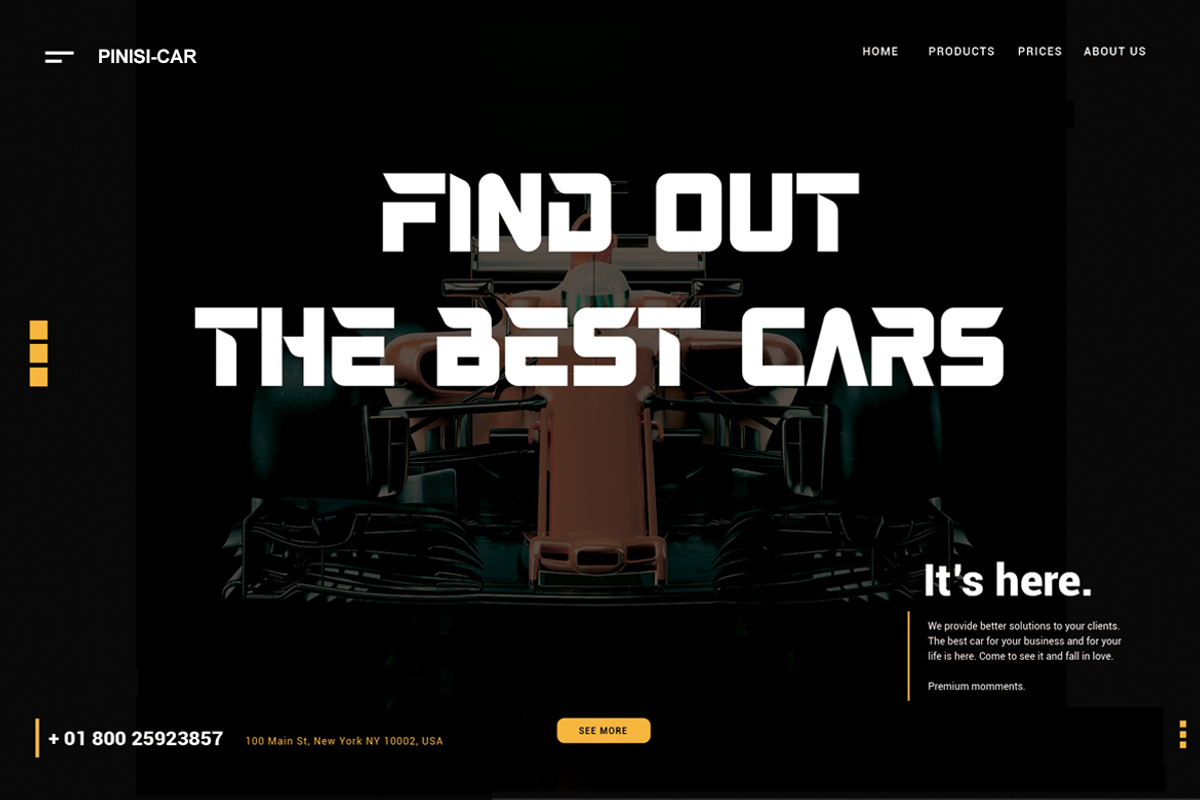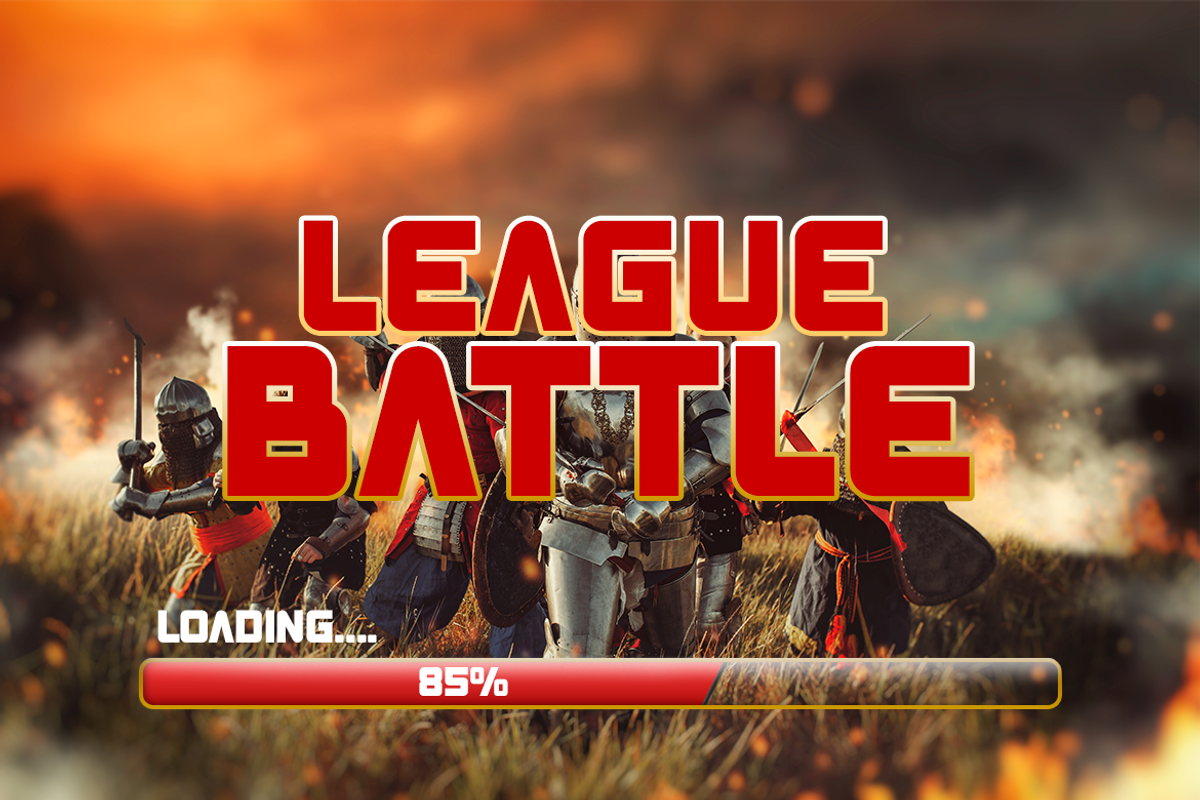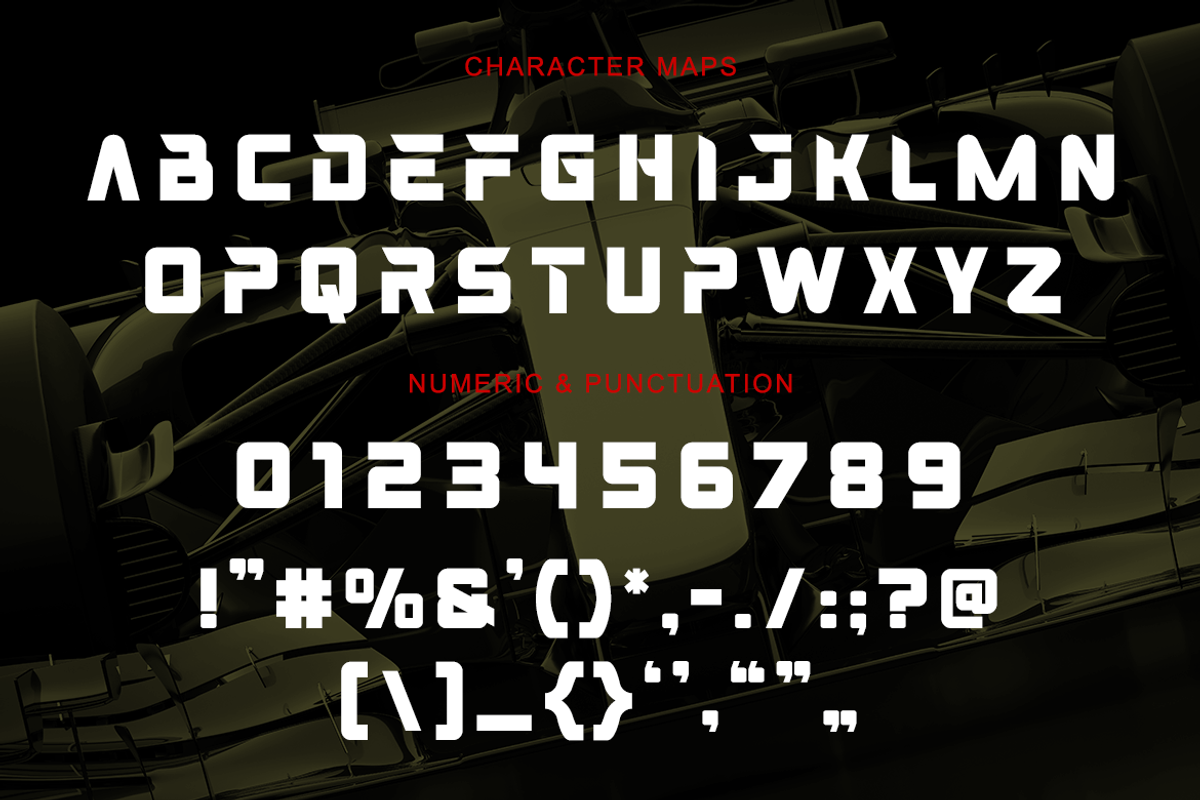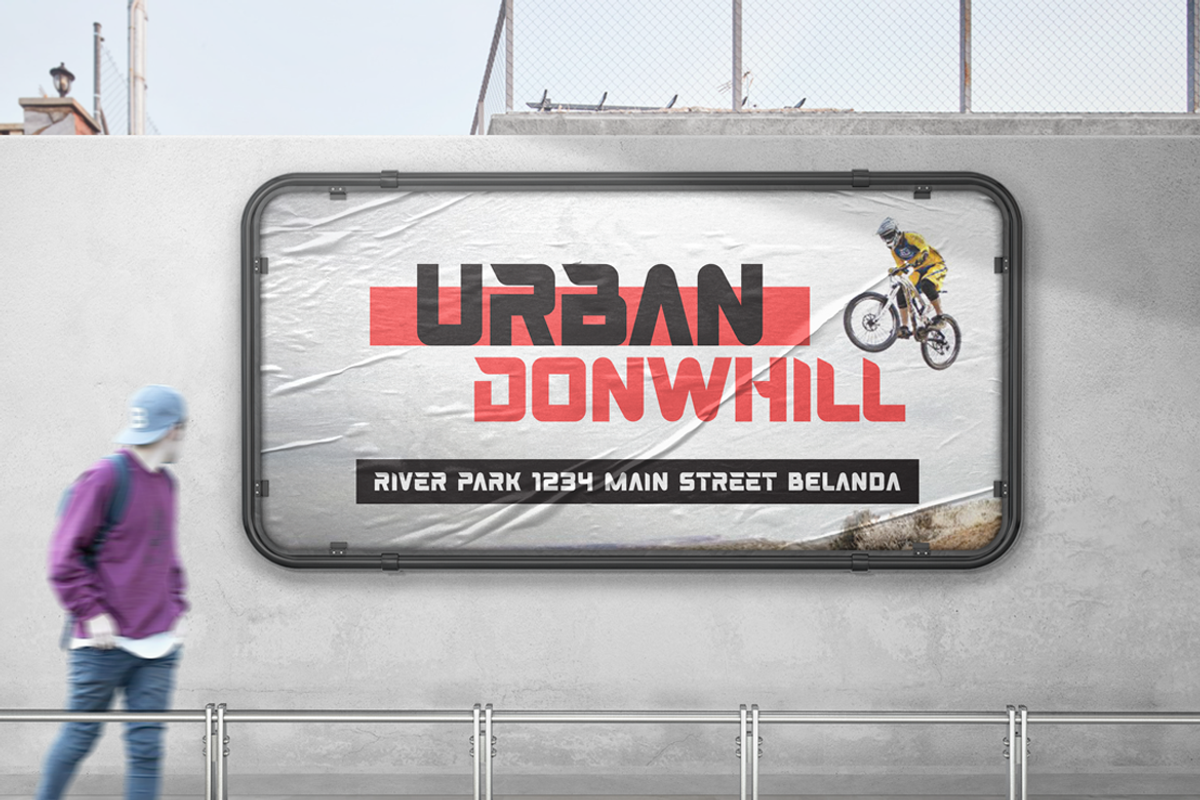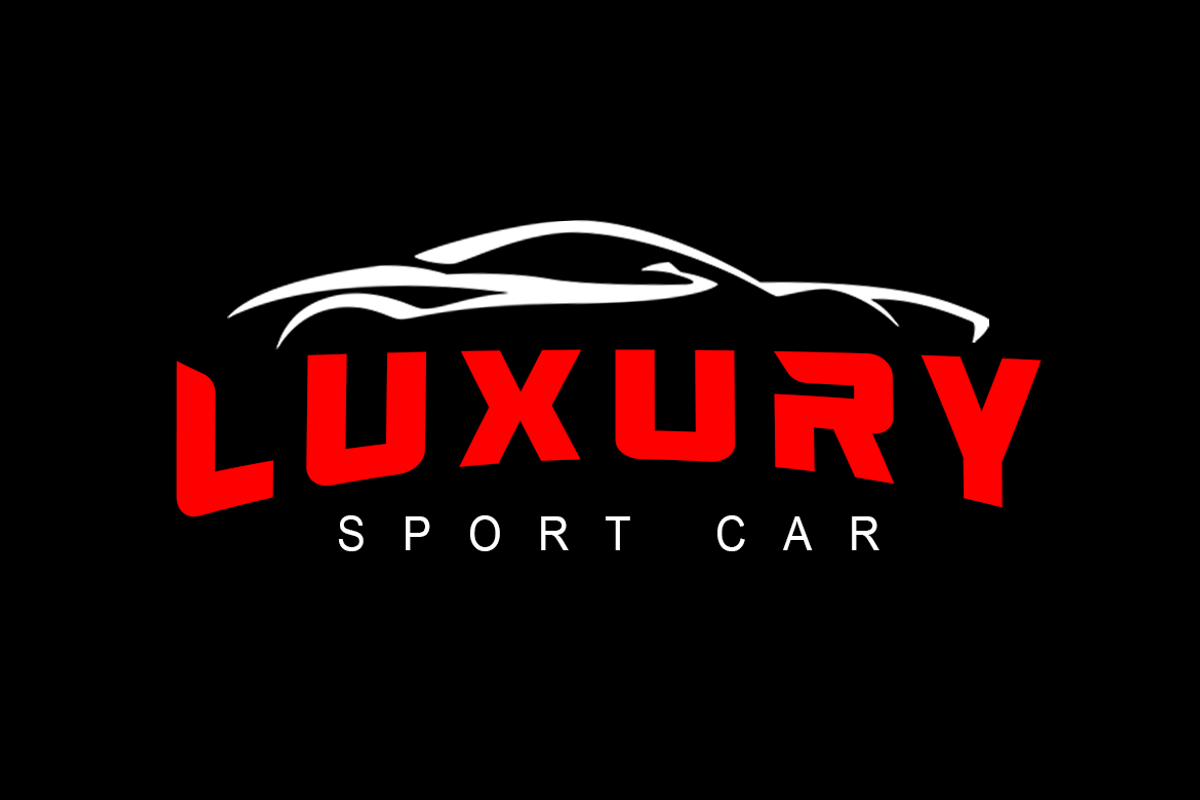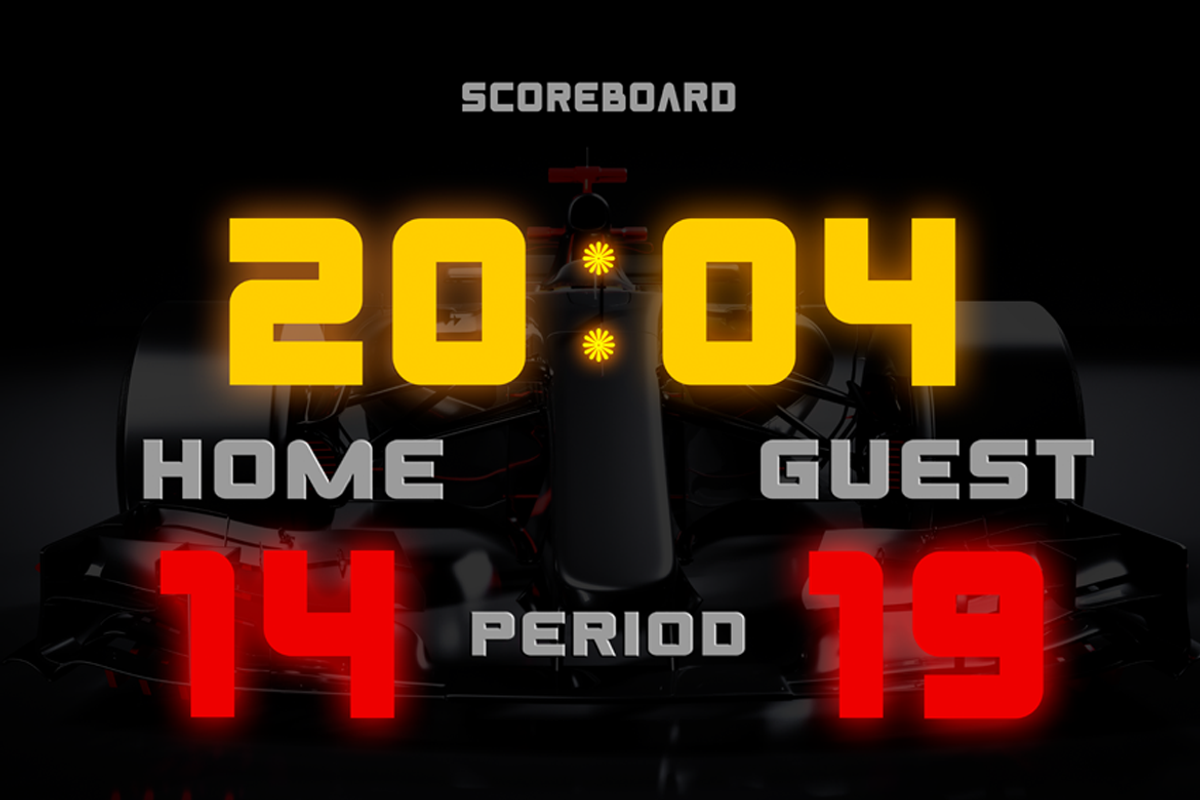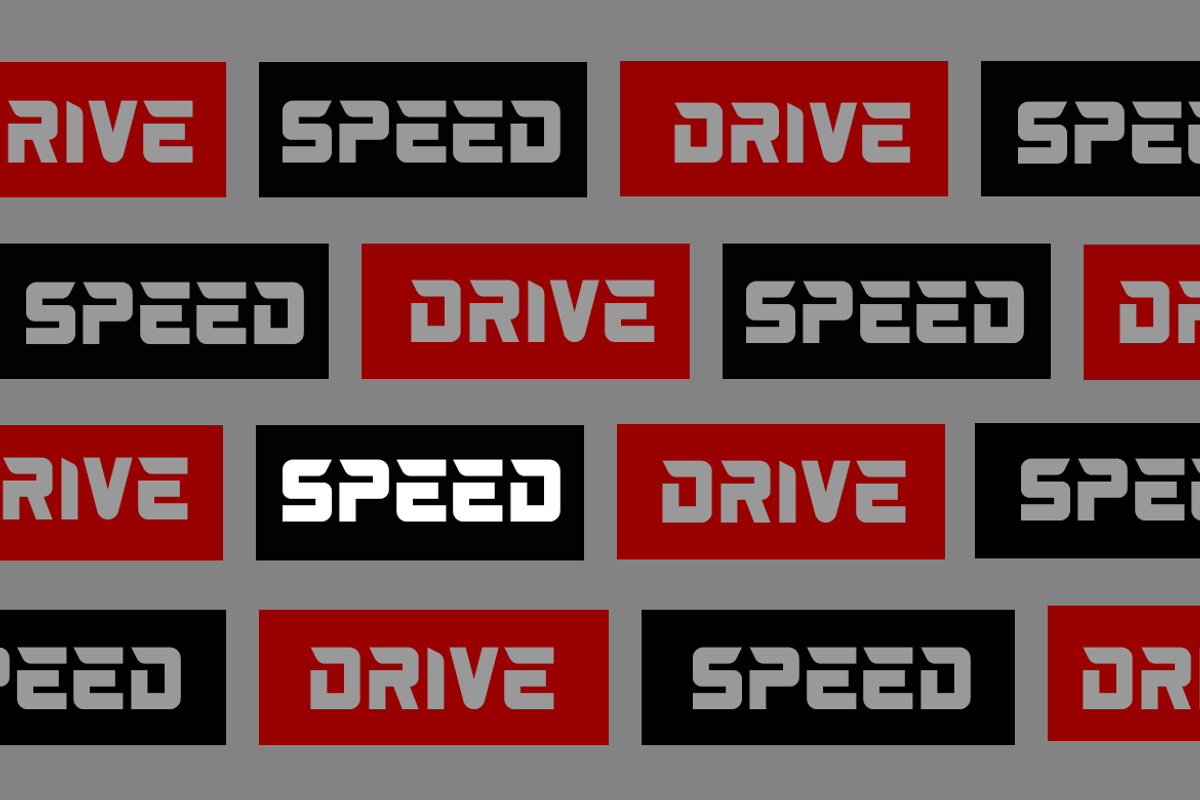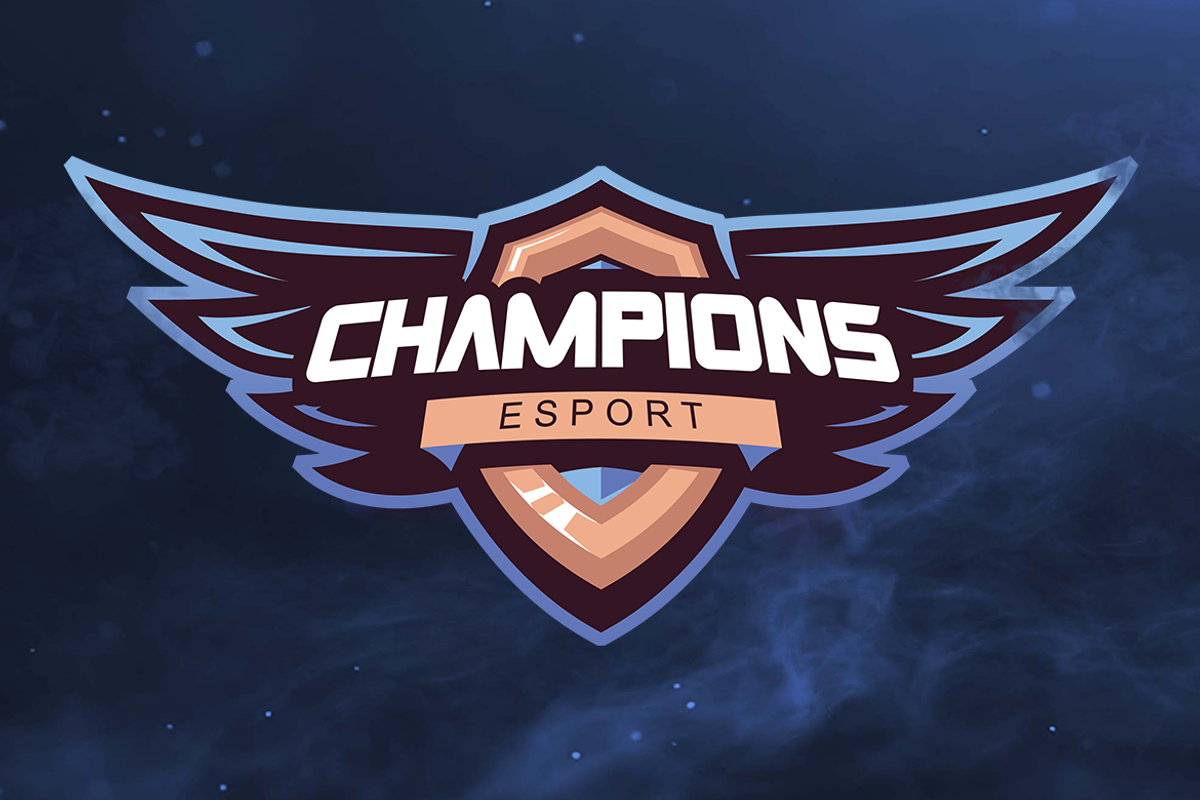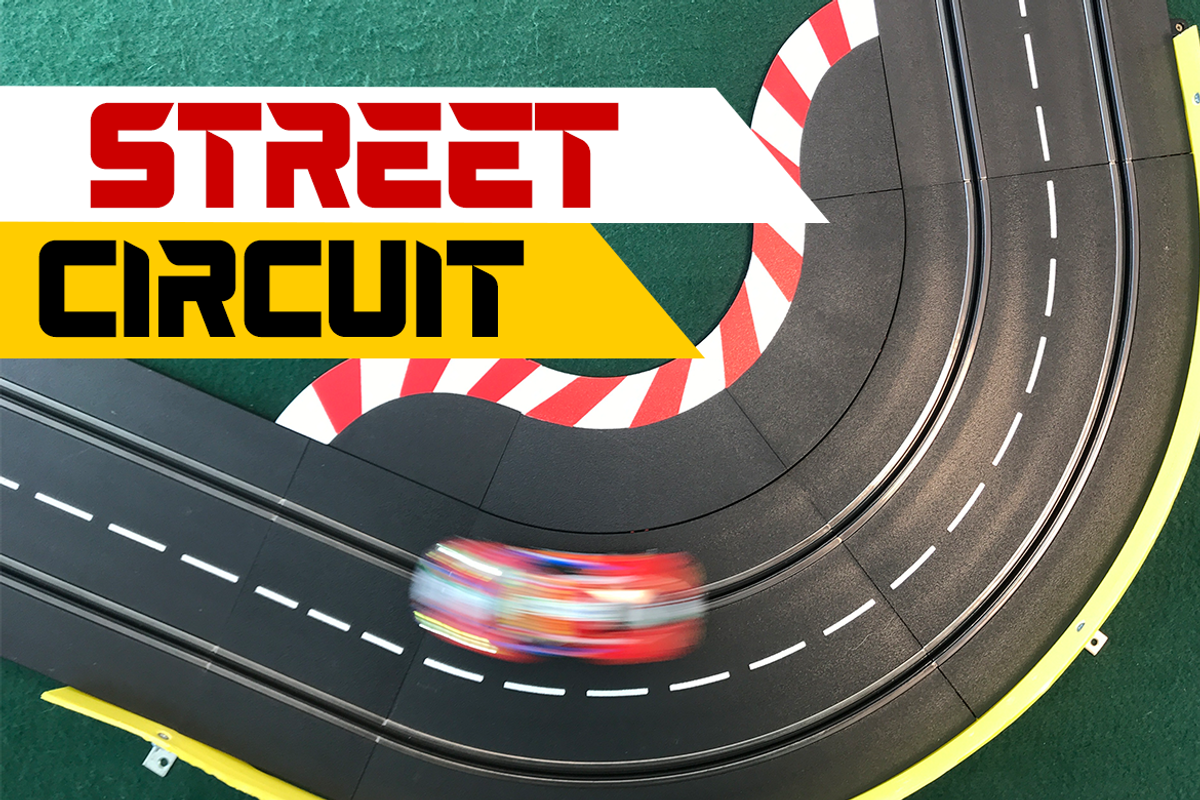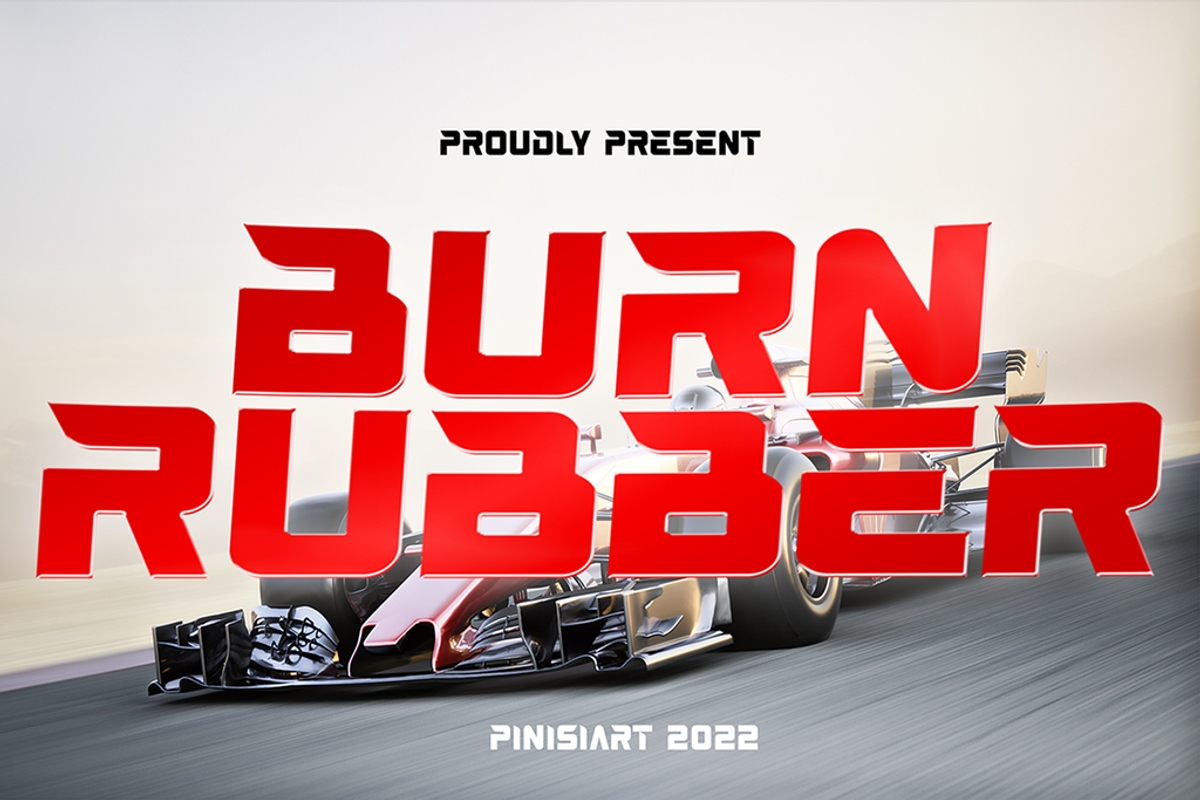
BURN RUBBER – Speed Display Font
A fast and competitive world is what Burn Rubber is all about. An all-caps font that will emphasize the need for speed in your project.
Suit perfect for racing books market, online games, sports event posters, school supplies font, poster, movie title, youtube covers, youtube thumbnails, social media page covers, and so on…